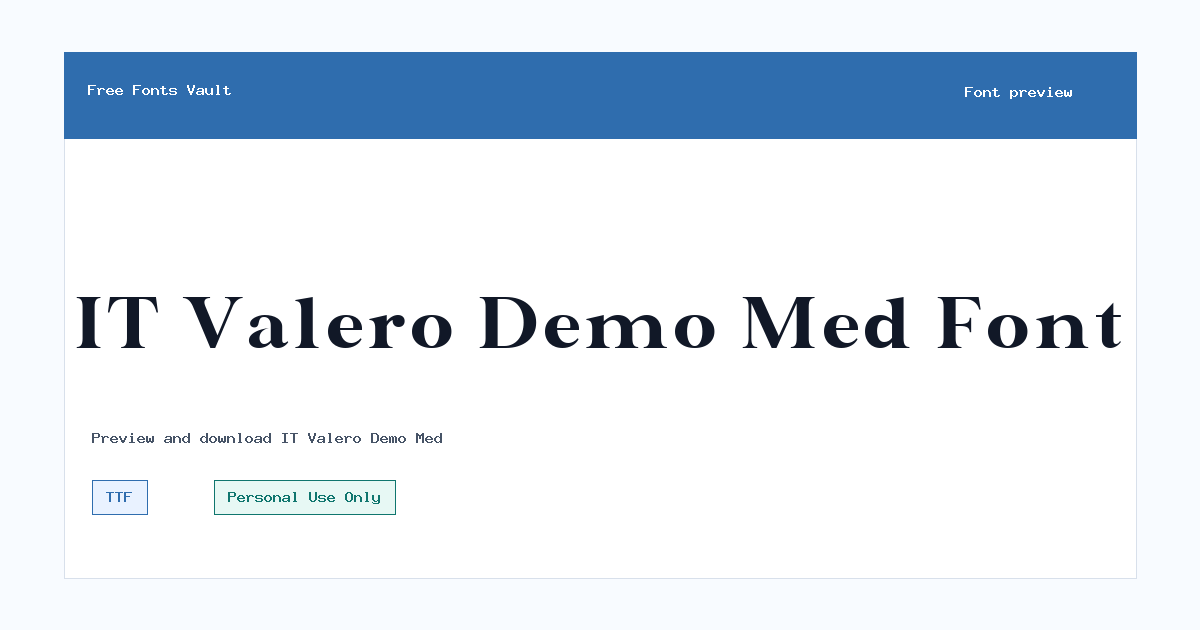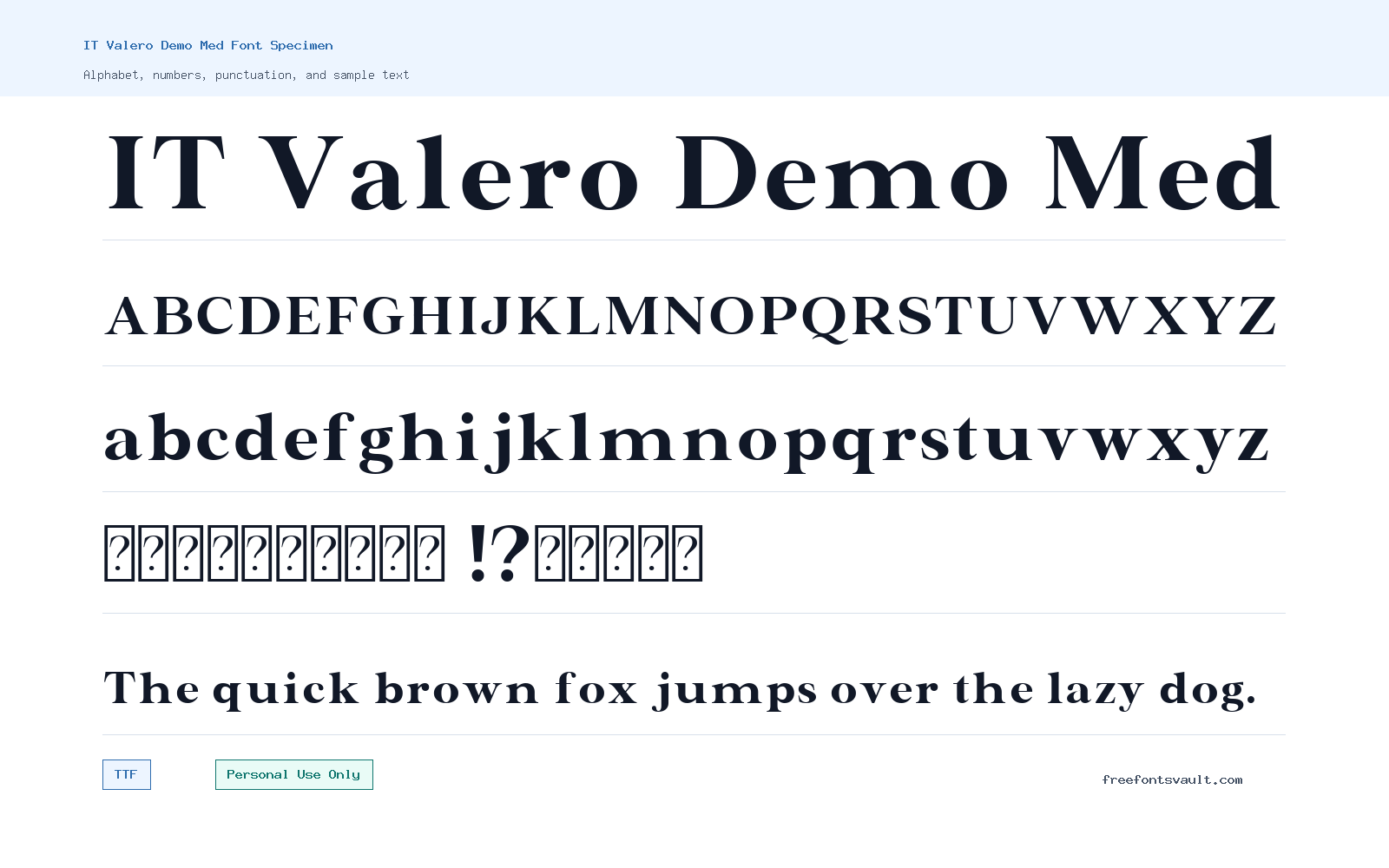
IT Valero Demo Med
IT Valero Demo Med Font
• Designer Indotype
• Foundry Indotype Foundry
IT Valero Demo Med font.
IT Valero Demo Med is a medium-weight serif font from Indotype Foundry, offered as a TTF font for personal-use projects. It is best approached as a preview and testing font for designers who want to try a refined serif style in titles, display layouts, and visual concepts before checking full licensing options.
About IT Valero Demo Med
IT Valero Demo Med has the steady feel of a medium serif: not as light as a delicate book face, and not as heavy as a bold display cut. That middle weight makes it useful when you want a title or nameplate to feel clear, structured, and a little more formal than a plain sans serif. Because the font name identifies it as a demo medium style, it is especially suited to trial layouts, personal mockups, and early design exploration rather than final commercial production.
For pairing, avoid placing IT Valero Demo Med beside another decorative or high-personality display font unless you want a busy look. A clean sans serif is usually the safer partner for captions, navigation, or body text. If you use another serif, choose one with a calmer texture and clear difference in size or role. In poster and social graphics, try IT Valero Demo Med for the main headline, then use lighter spacing and a plain secondary font underneath. In web mockups, test it in hero headings, category labels, and editorial mastheads rather than long paragraphs first.
• Medium-weight serif style suited to title testing, poster headlines, nameplates, and editorial-style mockups.
• A practical option for trying refined serif typography before choosing a fully licensed font for client or business use.
• Personal poster designs and invitation-style layouts
• Logo concept sketches and brand mood exploration
• Editorial headings, masthead tests, and portfolio mockups
• Web hero section mockups and presentation titles
• Short text graphics where a medium serif feels more polished than a neutral sans serif
What kind of font is IT Valero Demo Med?
It is presented as a medium-weight serif font. The available file is a normal-style TTF with a 500 weight.
What projects is this font good for?
It is useful for personal posters, invitations, editorial headings, presentation titles, web mockups, and early branding concepts where a medium serif style fits the design.
What should I pair with IT Valero Demo Med?
Pair it with a clean sans serif for body text, captions, menus, or supporting copy. Avoid using another strong display font beside it unless the design needs a more decorative look.